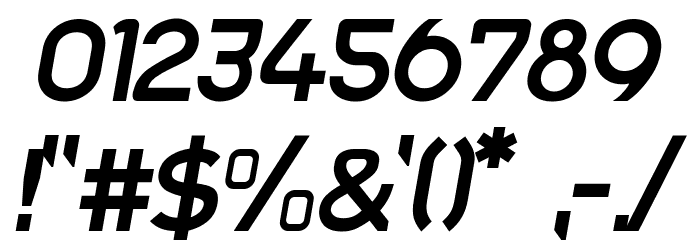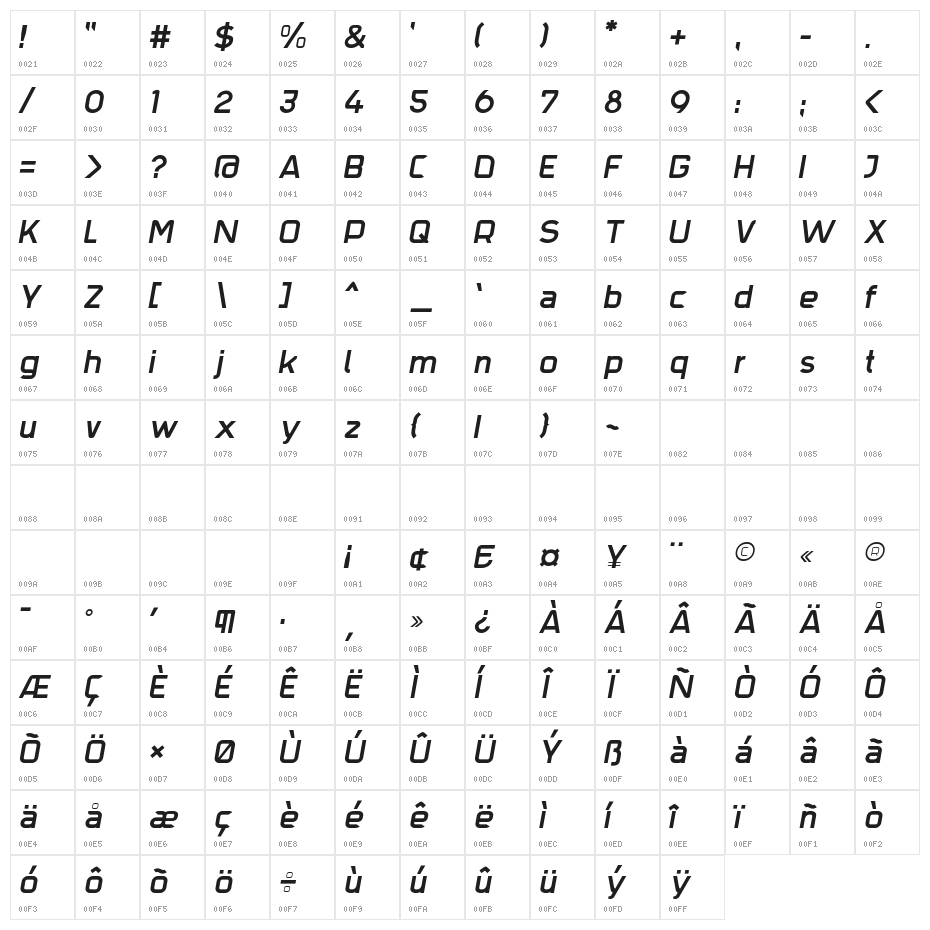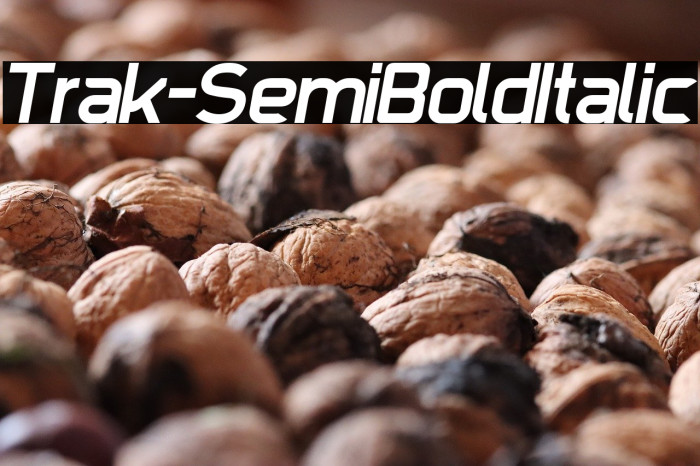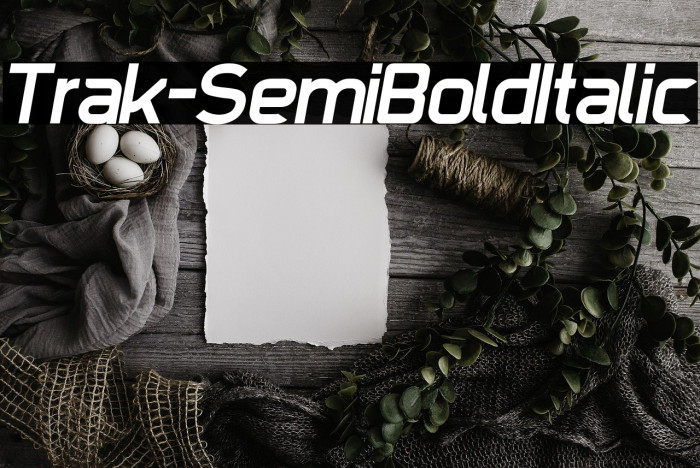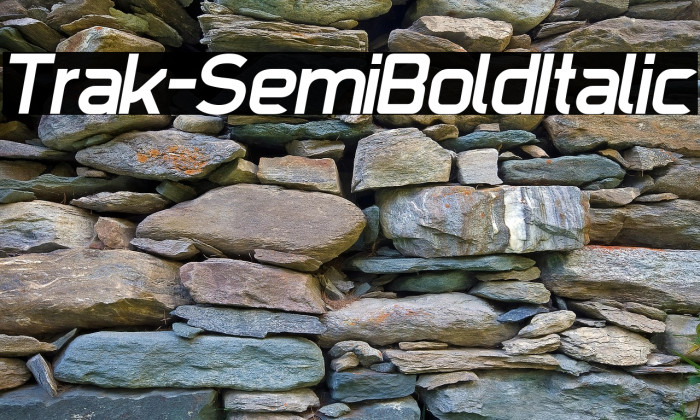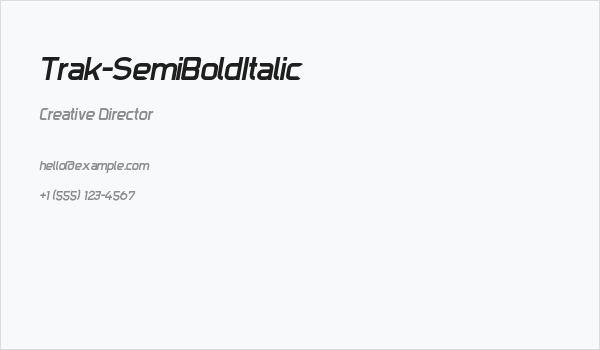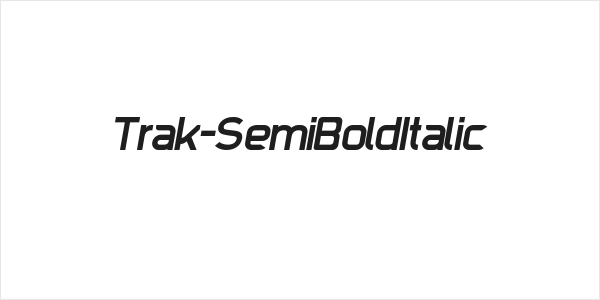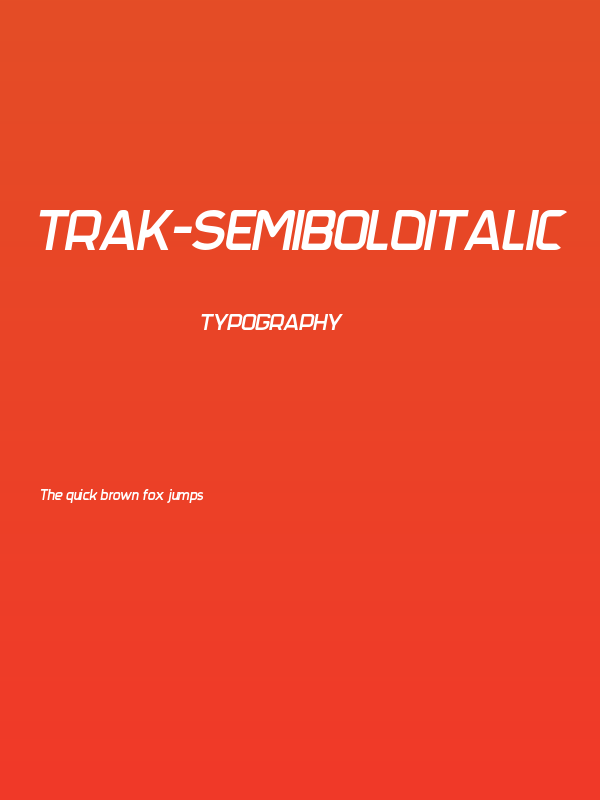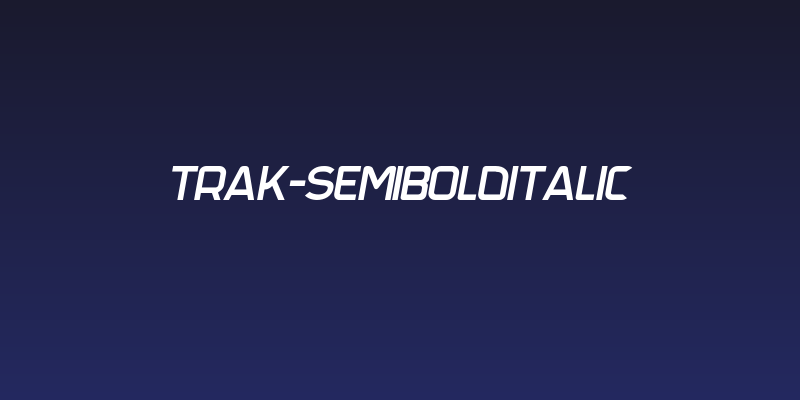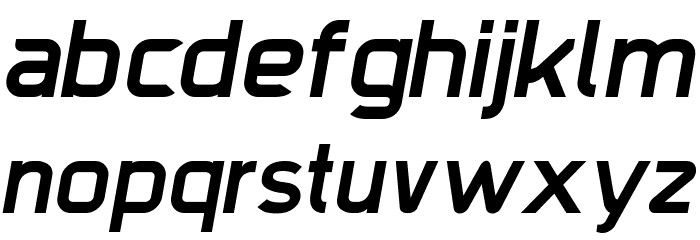
Trak-SemiBoldItalic Font
Trak-SemiBoldItalic Description
This font features a sleek, modern design with a semi-bold weight and italic style. The characters are slightly condensed, giving it a compact and efficient appearance. The strokes are consistent, with medium contrast, providing a clean and professional look. The font maintains a uniform character spacing, ensuring readability while adding a dynamic and forward-leaning aesthetic. Its contemporary style makes it suitable for various digital and print applications.
| Proposed Projects | Ideal for tech branding, modern advertising, digital interfaces, and dynamic print layouts. |